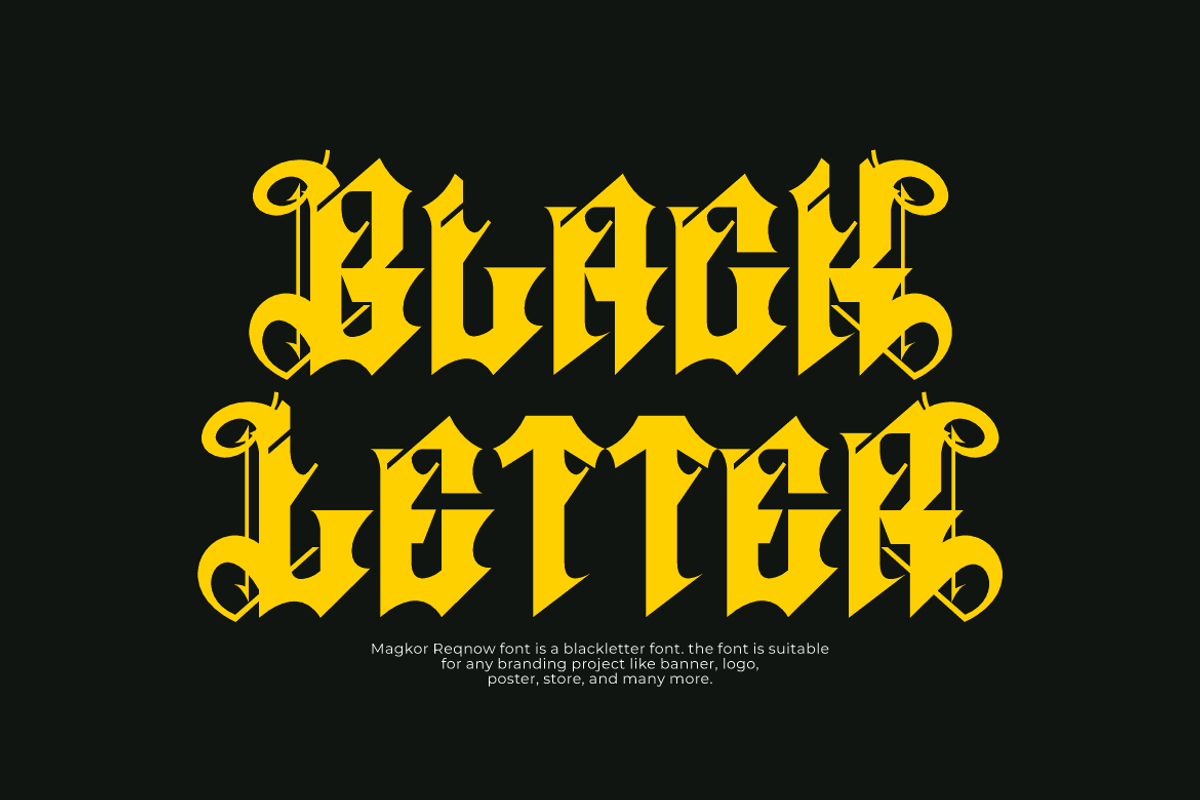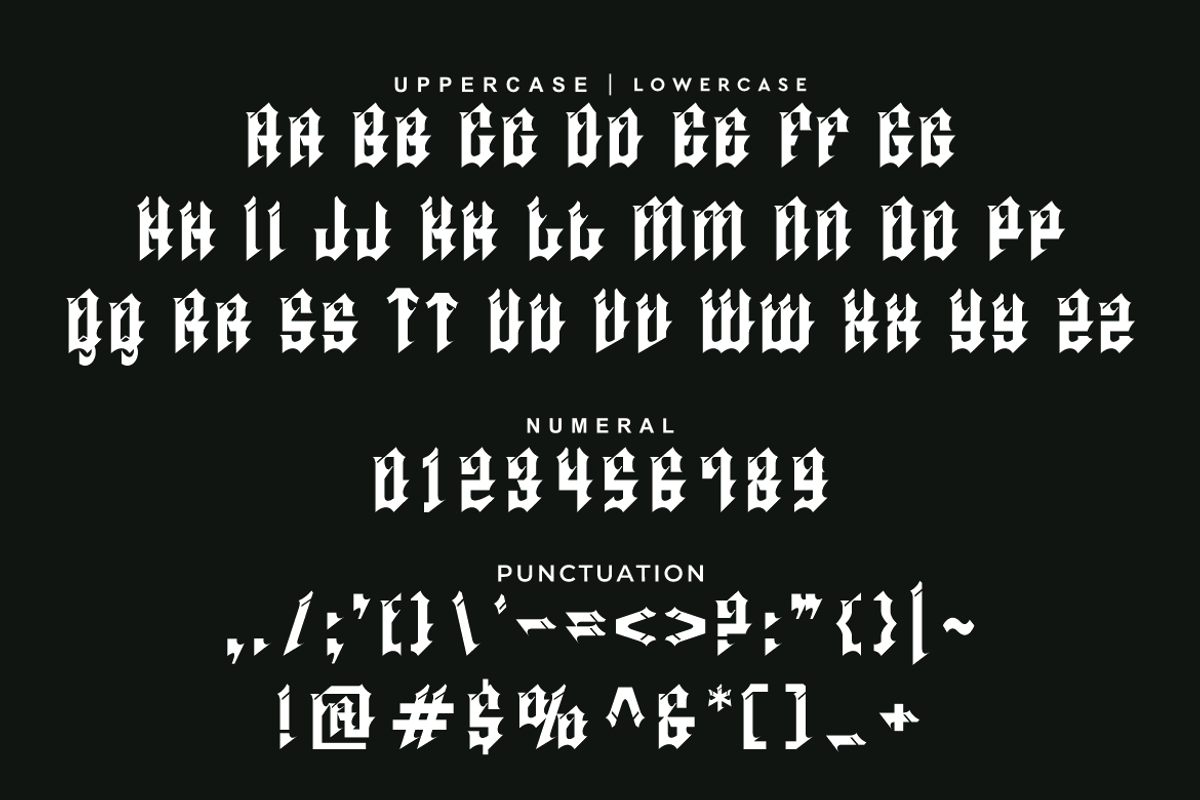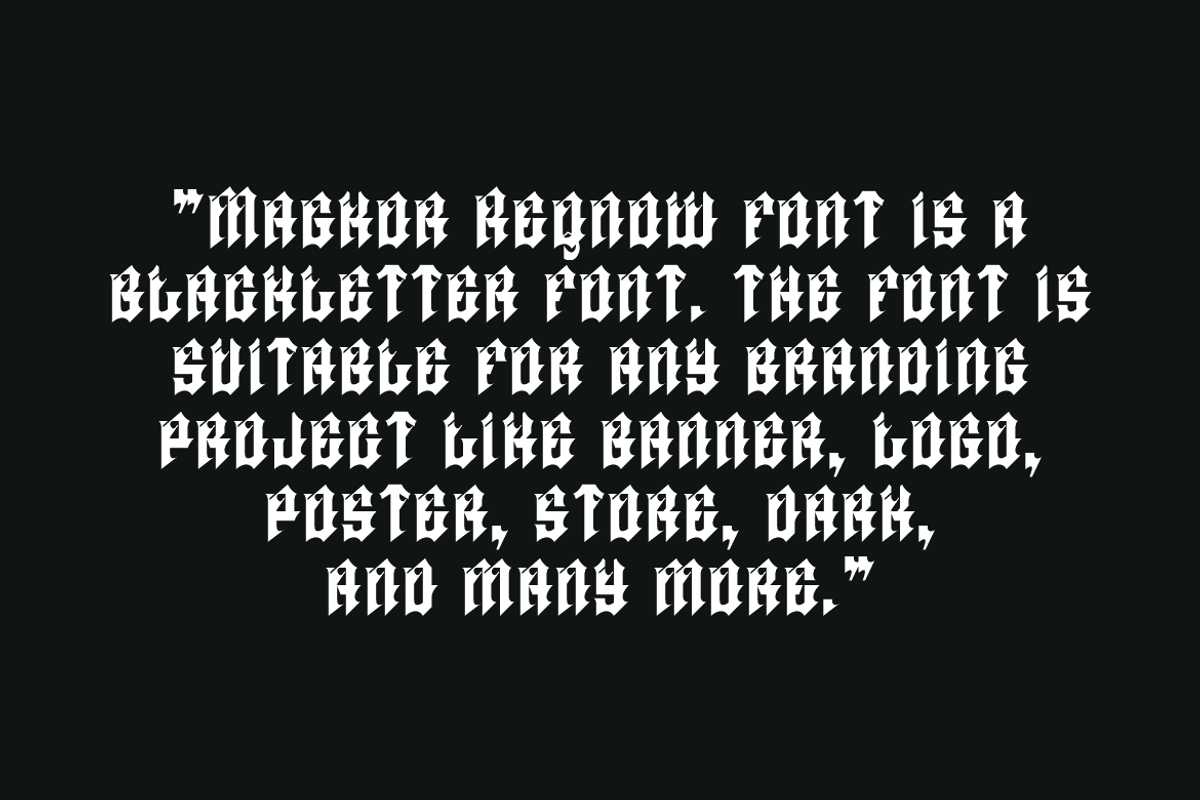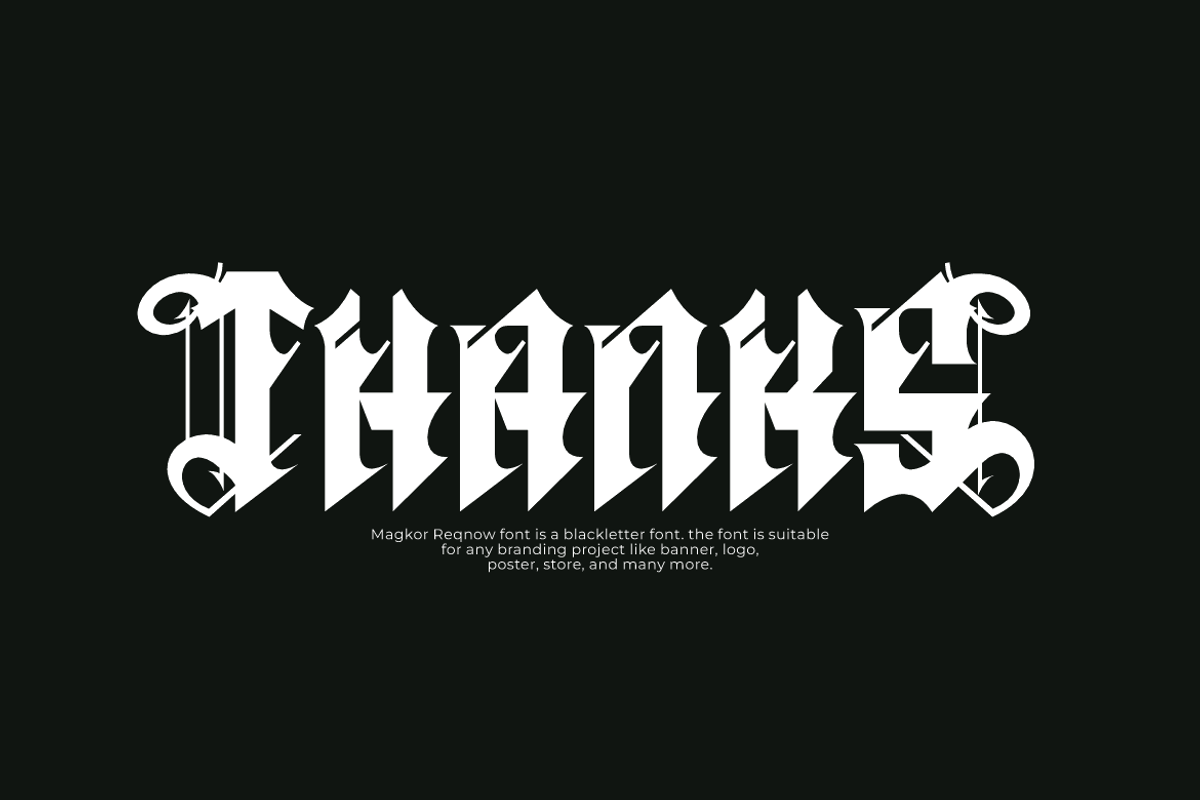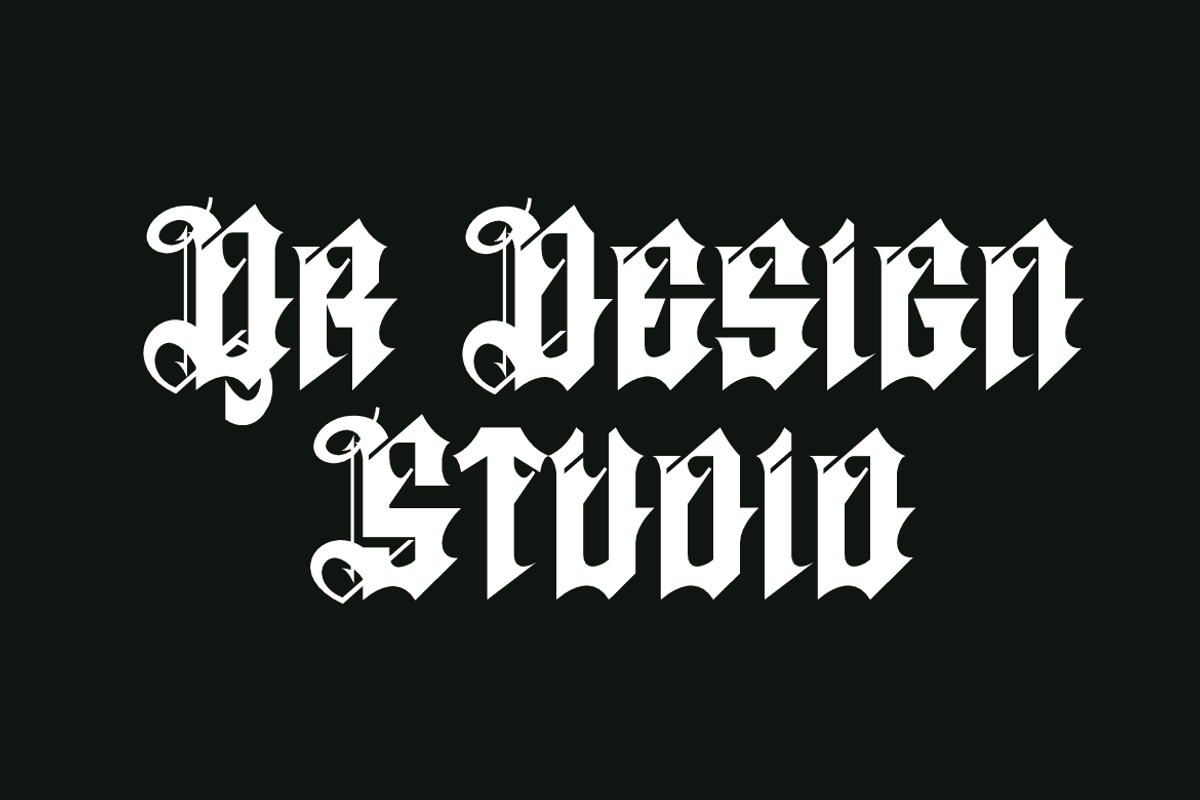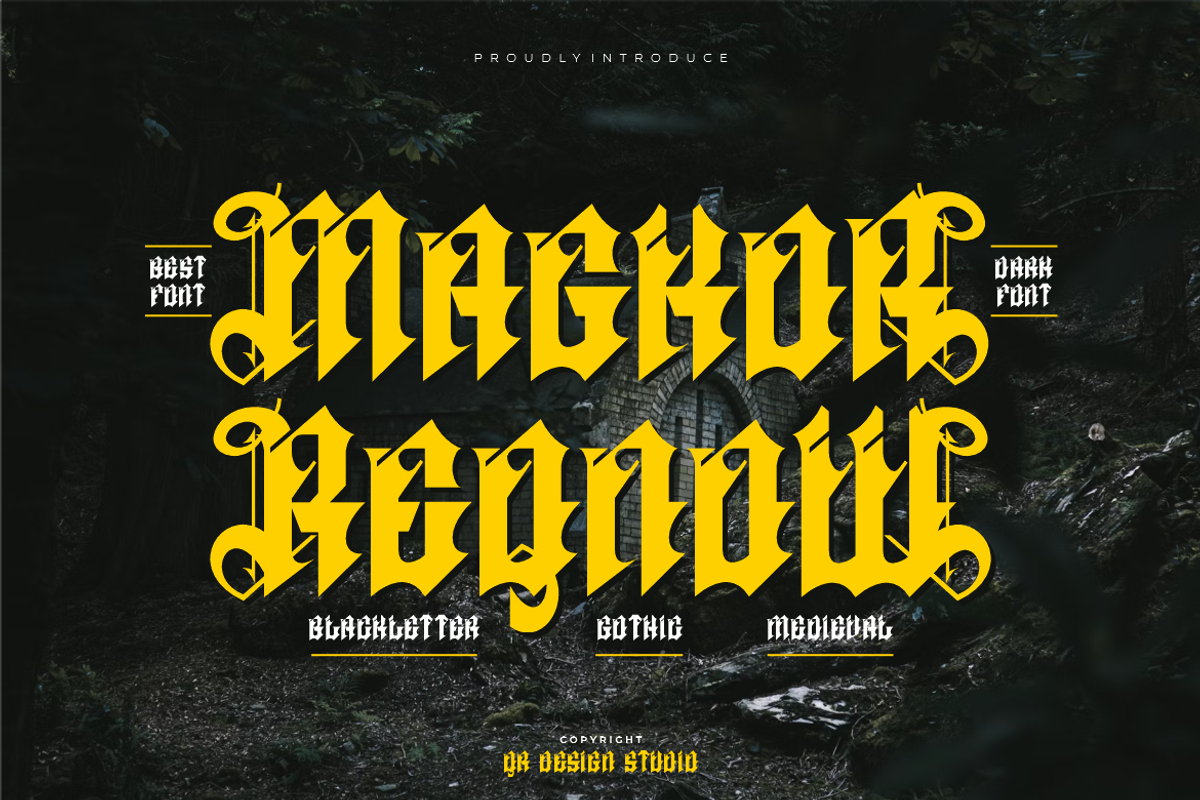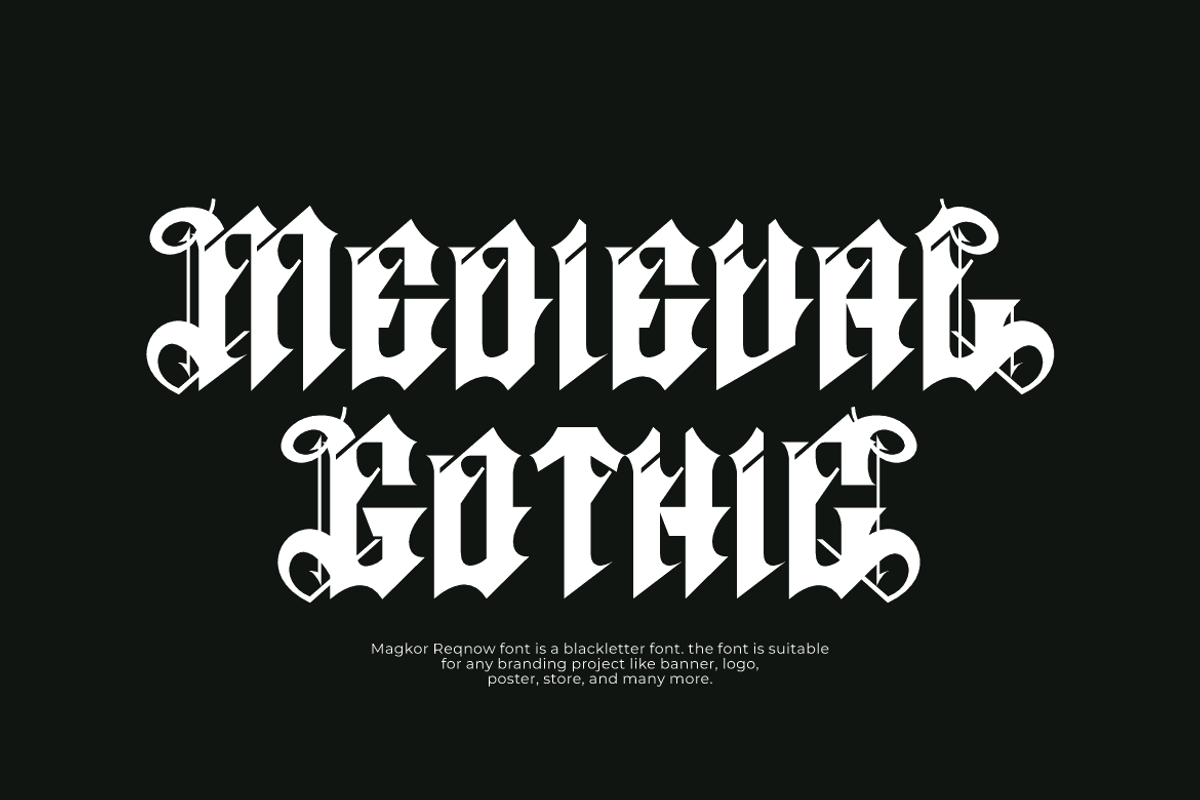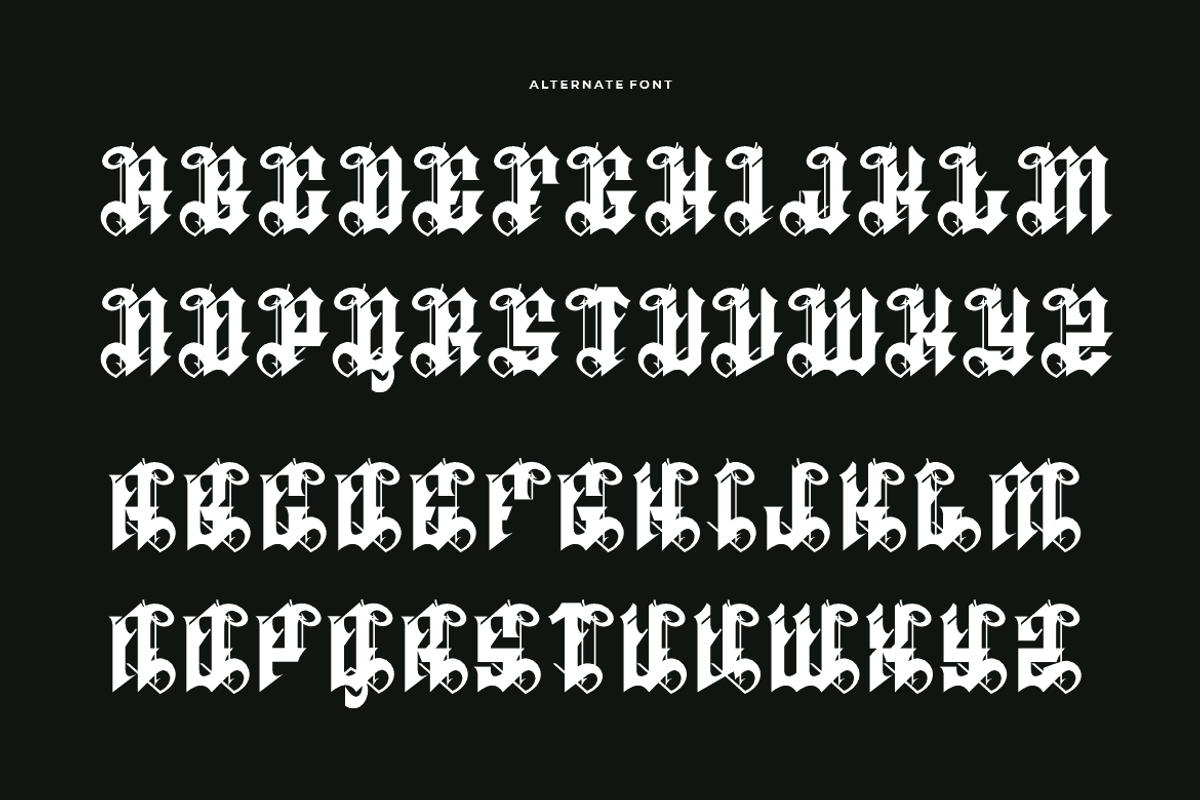
Magkor Reqnow - Medieval Font
Magkor Reqnow Font is a blackletter and authentic display font. The font is suitable for any branding project like poster, logo, sport, and many more. Outstanding in a wide range of contexts.